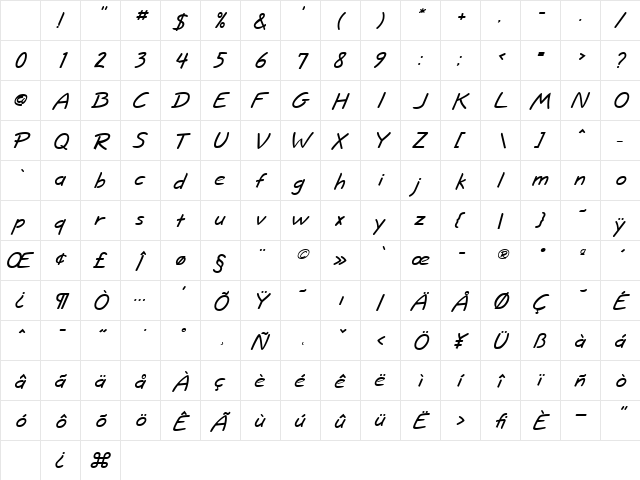
Complete JottFLF-BoldItalic. 97 glyph index. Displaying only characters natively supported by JottFLF-BoldItalic. 97 font.
JottFLF-BoldItalic. is a composed and adaptable typeface that performs quietly and consistently across a wide range of design contexts. The slanted form adds forward momentum and visual energy. Its bold stroke weight gives it real presence on the page.